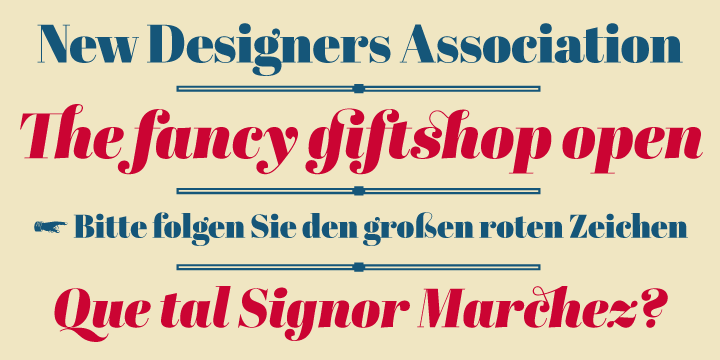
The Abril Font is an outstanding choice for projects that demand a blend of classic elegance, dramatic impact, and a strong editorial presence. Inspired by the heavy titling fonts used in advertising posters in 19th-century Britain and France, it's perfectly suited for bold magazine headlines, newspaper mastheads, luxury branding, book covers, advertising campaigns, and any design that requires a strong, authoritative, and visually captivating typeface. Its distinctive character makes it ideal for conveying a sense of heritage, sophistication, and undeniable visual flair.
What makes Abril Font so exciting is its remarkable ability to command attention with its striking contrasts and elegant flourishes. It typically features strong, impactful serifs and high-contrast letterforms, designed to stand out crisply and legibly, especially in larger display sizes. This font isn't just about reading words; it's about experiencing them as part of a grand typographic statement, making your content feel both authoritative and aesthetically rich. It excels at delivering maximum visual impact in headlines, titles, and branding elements, ensuring your messages are bold, memorable, and imbued with a sense of classical gravitas. Its design often evokes the precision of engraved plates and the timeless beauty of traditional print.
The Abril Font family is typically comprehensive, offering a range of styles to provide flexibility for designers. The most well-known is Abril Display, designed specifically for headlines and larger text, which is characterized by its high contrast and elegant curves. There is also Abril Text, which is designed for smaller text sizes, offering slightly lower contrast and increased robustness for better legibility in body copy. Both often come with complementary italic versions. This versatile family allows for sophisticated typographic hierarchies, enabling precise control over emphasis, flow, and visual balance within your designs, making the Abril Font Free Download an invaluable tool for any project.
Whether you're designing a prestigious magazine cover, crafting a timeless brand identity for an upscale business, or creating compelling advertising materials that speak to enduring quality and style, the Abril Font Free Download offers an indispensable tool. Its commanding visual presence and undeniable character make it a premier choice for any project that needs to deliver a strong, unforgettable message with a sense of tradition and elegant authority.